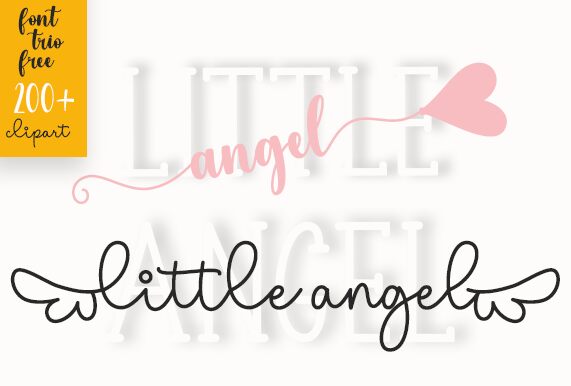
Angel
Introducing Angel, a beautiful handwritten font by Fillo Graphic. With its semi-bold weight and charming style, Angel adds a touch of elegance to any project.
Perfect for wedding invitations, greeting cards, and feminine branding materials, this font brings a delicate and graceful aesthetic to your designs. Its unique handcrafted appearance also makes it suitable for artistic projects such as calligraphy prints, art journals, and inspirational quotes.
Let Angel be your go-to choice when you want to add a touch of sophistication and warmth to your creative endeavors.